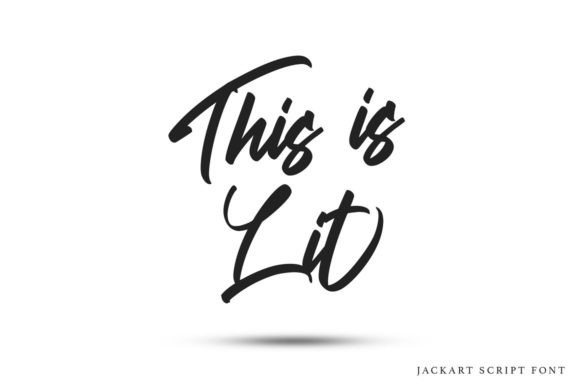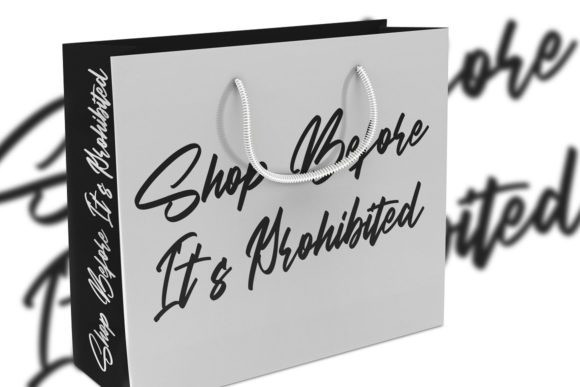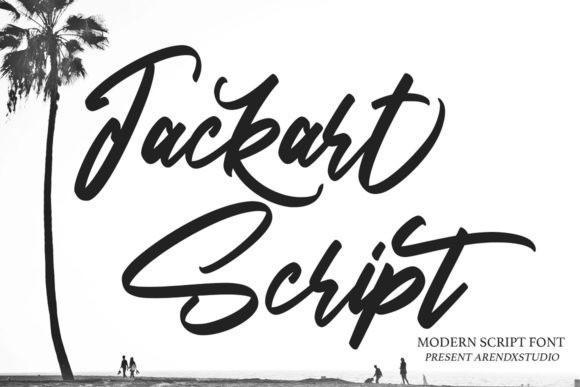
Jackart Script Font
Jackart is an astonishing and stylish handwritten font.
It looks beautiful on a variety of designs requiring a personalized style, such as wedding invitations, thank you cards, weddings, greeting cards, logos and so on.